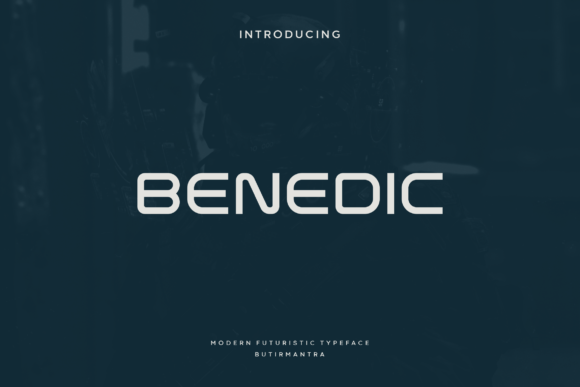
Feast your eyes on Benedic Font, a captivating creation by garismantra, designed to set your digital horizons ablaze. This sans serif font family is not just a collection of letters; it's a gateway to a world of endless possibilities. Benedic's clean and modern all-caps structure exudes an aura of futuristic elegance, making it the perfect choice for those who dare to dream beyond the ordinary.
Immerse yourself in the sleek and sophisticated lines of Benedic. Each character is meticulously crafted to deliver a striking visual impact, ensuring that your designs command attention and leave a lasting impression. Whether you're crafting logos, headlines, posters, or any other creative project, Benedic will elevate your work to new heights of visual excellence.
With Benedic, you'll have a font that's as versatile as your imagination. Its adaptability knows no bounds, effortlessly complementing a vast array of projects. Unleash your creativity and watch as Benedic transforms your mundane designs into masterpieces that captivate and inspire.
Benedic's sci-fi undertones add an element of intrigue and excitement to your creations. It's the perfect choice for conveying a sense of innovation, progress, and boundless possibilities. Step into the future with Benedic and let your designs soar to new heights of technological prowess.
Benedic isn't just a font; it's a statement of style, a reflection of your bold and forward-thinking approach to design. Embrace the power of Benedic and watch as your work becomes a testament to your creative genius.